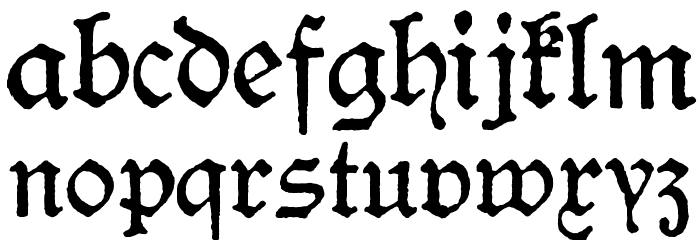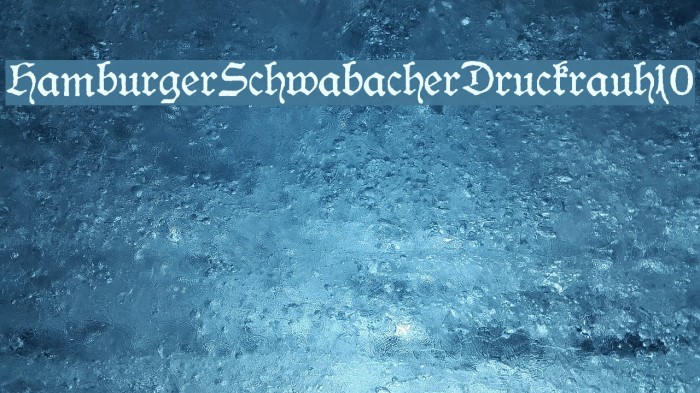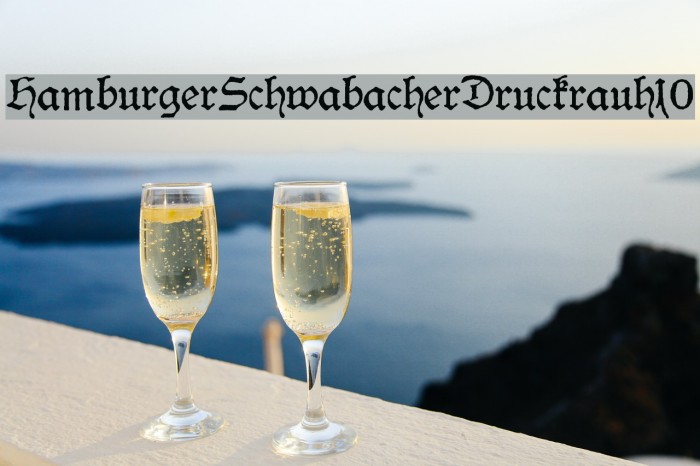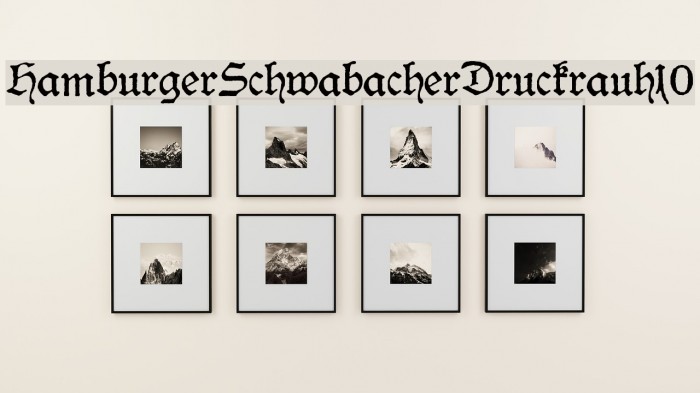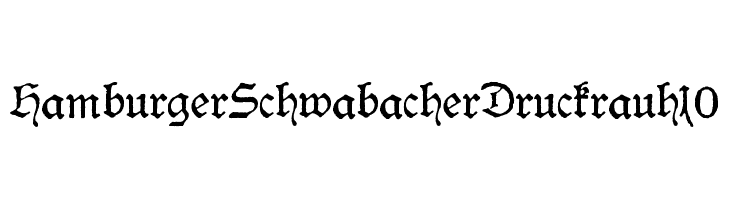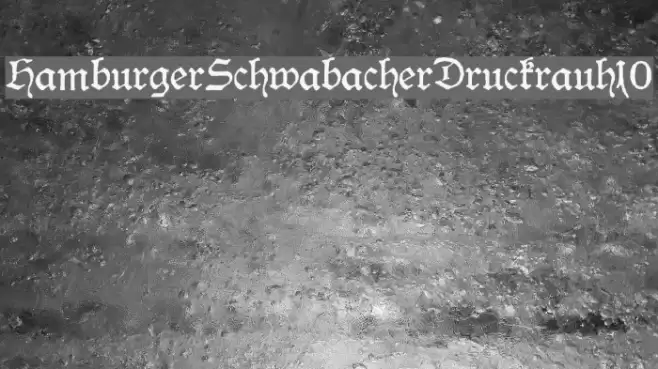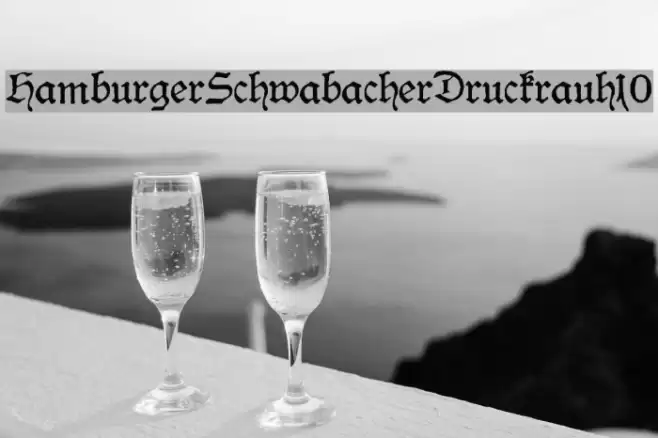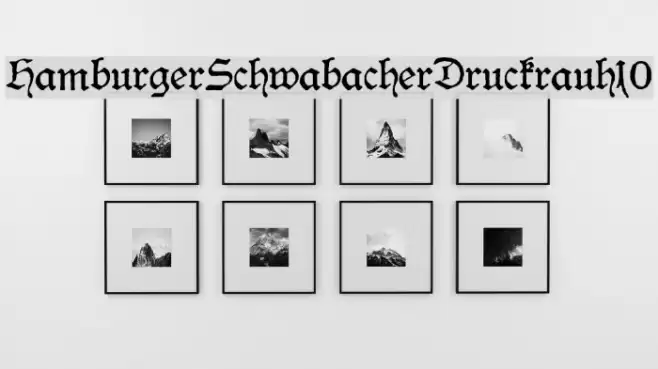
HamburgerSchwabacherDruckrauh10 Font
This font exhibits a traditional and ornate style reminiscent of historical scripts. The characters are intricately designed with a strong emphasis on angular and sharp edges, giving it a distinct Gothic appearance. The uppercase letters are bold and commanding, while the lowercase letters maintain a consistent flow with decorative flourishes. Numbers and special characters are crafted to match the overall aesthetic, ensuring uniformity across all elements. The font's unique style is ideal for creating a sense of antiquity and elegance.
A Gothic-style font with ornate, angular characters and decorative flourishes.
- Proposed Projects: Ideal for historical documents, vintage-themed designs, book covers, and decorative signage.
- Overall Style: Vintage
- Use Case: Headlines, Logos, Decorative text